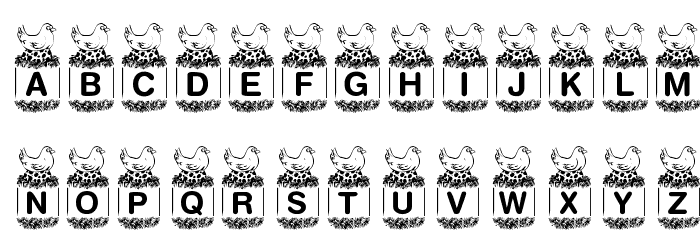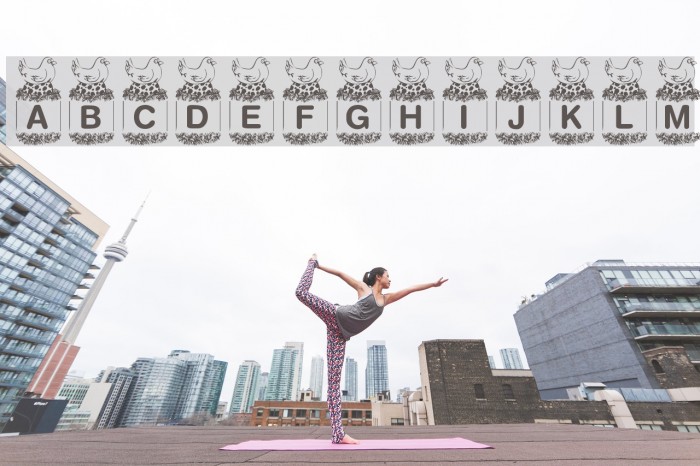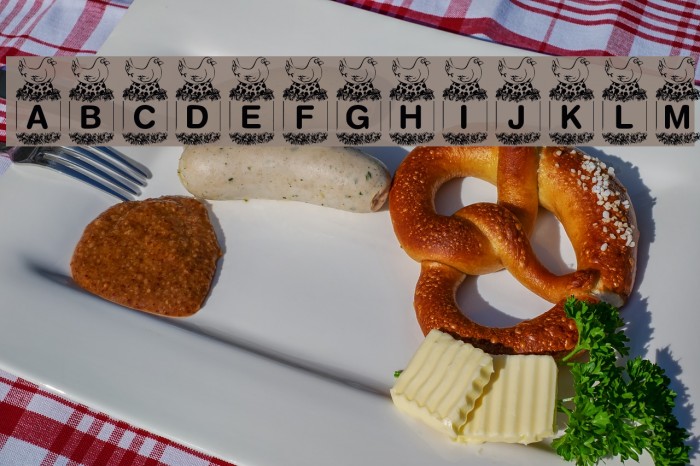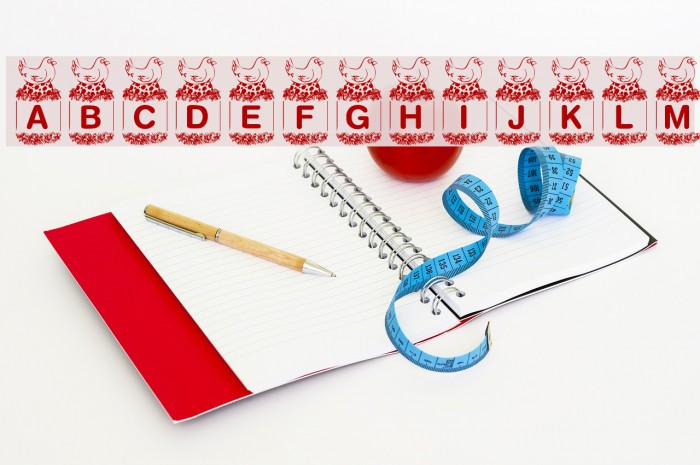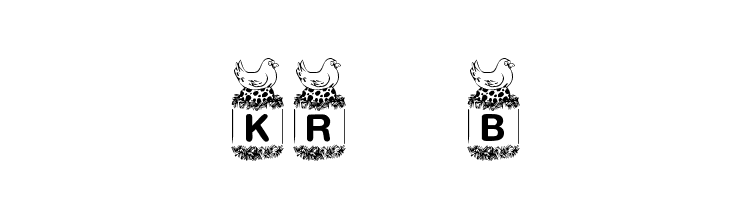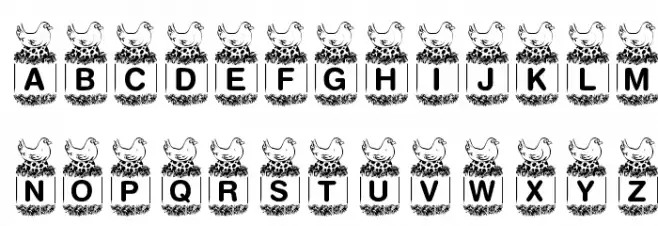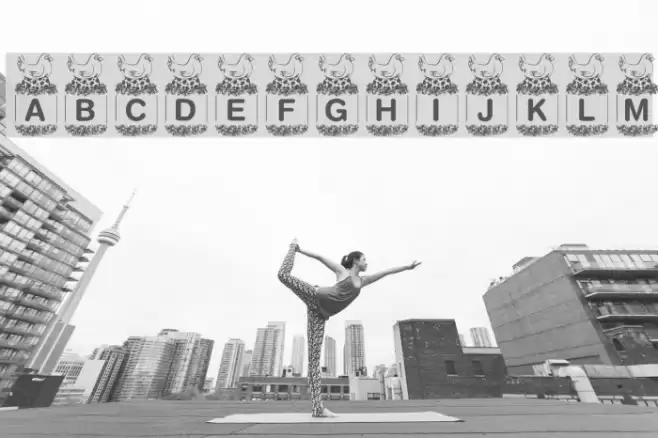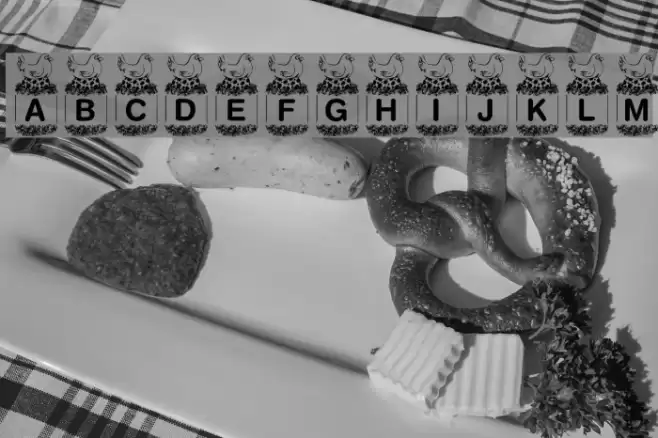
KR Birdy Font
This decorative font features uppercase letters adorned with intricate bird motifs. Each character is encapsulated in a square frame, with a stylized bird perched on top, adding a whimsical and artistic flair. The letters themselves are bold and clear, ensuring readability while maintaining a unique aesthetic. The combination of the bold typeface and the ornate bird design makes it stand out, perfect for creative projects that require a touch of elegance and playfulness.
A decorative font with bold letters and intricate bird motifs.
- Proposed Projects: Ideal for greeting cards, invitations, children's book covers, and decorative posters.
- Use Case: Logos, Headlines, Decorative text